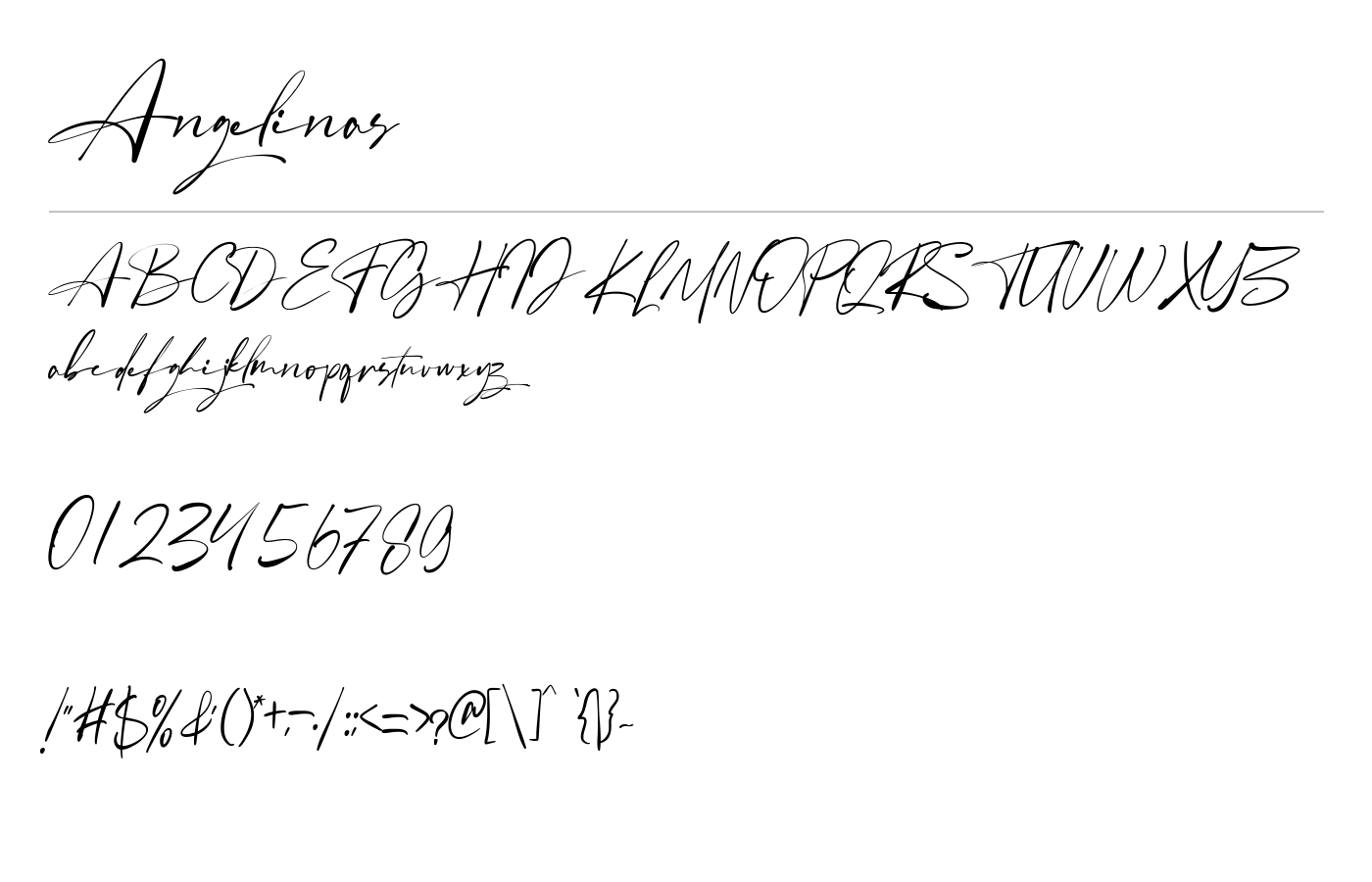
Angelinas is a delicate and elegant handwritten script font characterized by its slender, flowing strokes and airy, graceful letterforms. Its high-contrast, calligraphic style with a natural, personal touch makes it perfect for creating sophisticated invitations, branding, and stylish editorial designs where a sense of luxury and refinement is desired. This font brings a charming and artistic flair that enhances feminine, romantic, or high-end projects beautifully.
Angelinas Font
About Angelinas Font